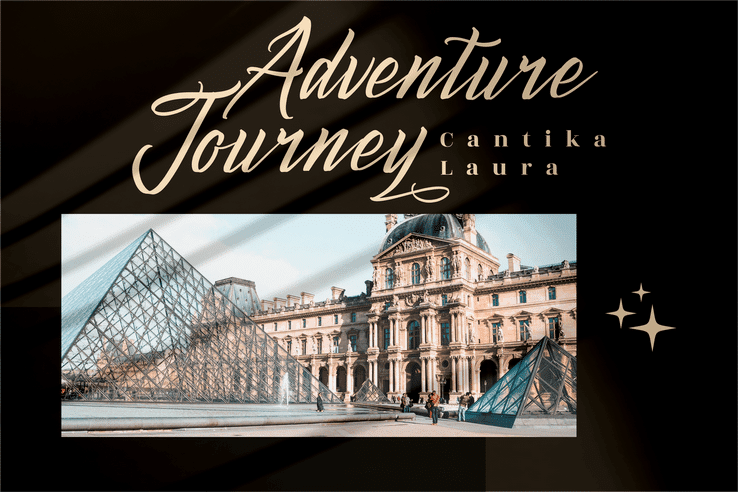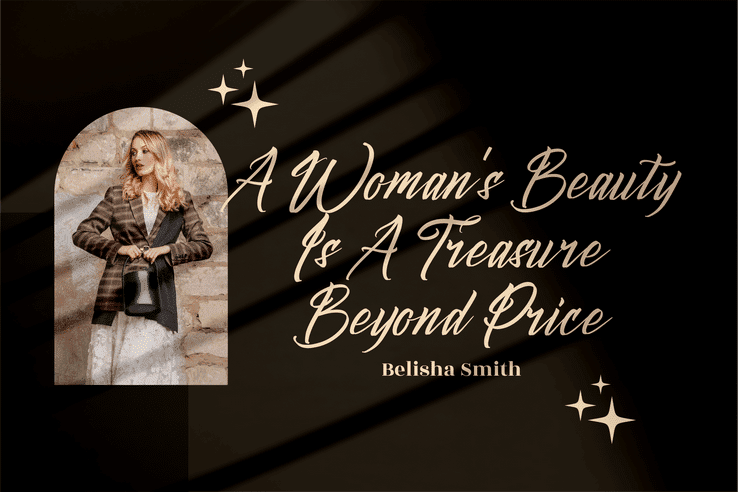
Symphony Calligraphy Font
Symphony Calligraphy Font is suitable for any projects such as logos, branding projects, homeware designs, product packaging, mugs, quotes, posters, shopping bags, t-shirts, book covers, name card, invitation cards, greeting cards, label, photography, watermark, special events, and all your other luxury projects that need a premium signature taste.